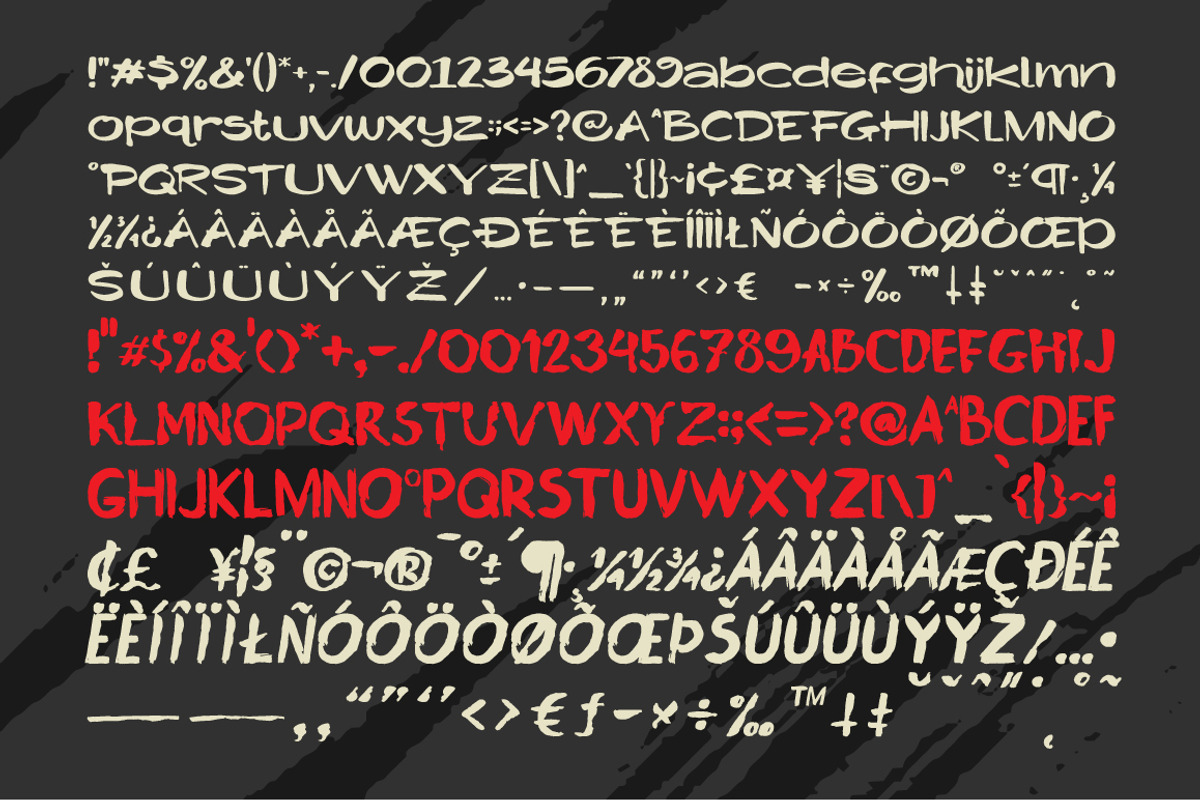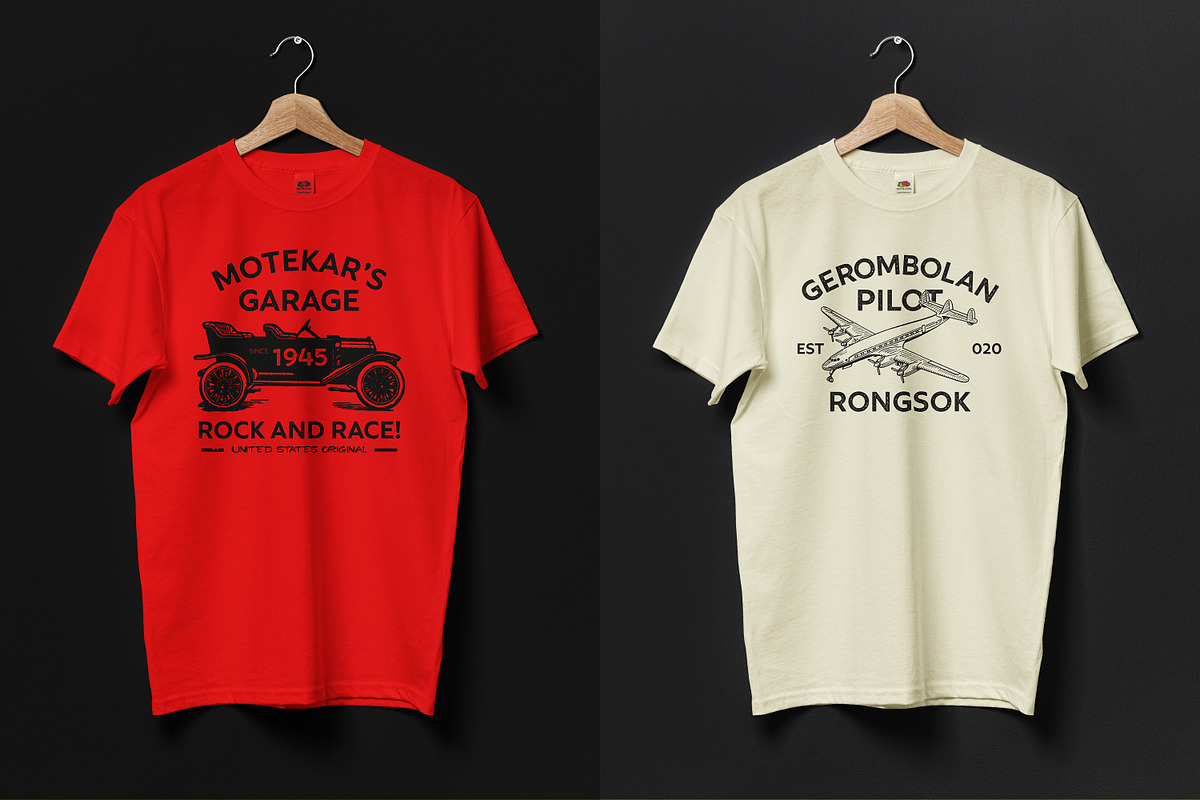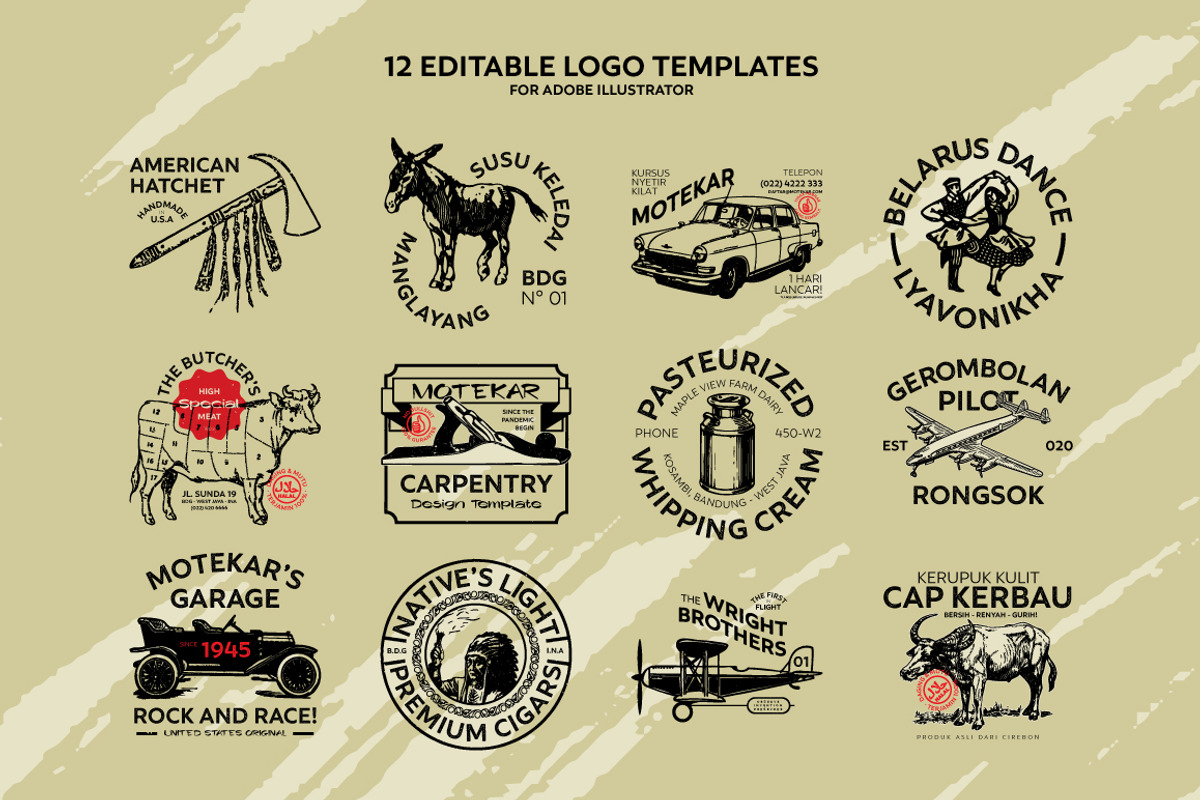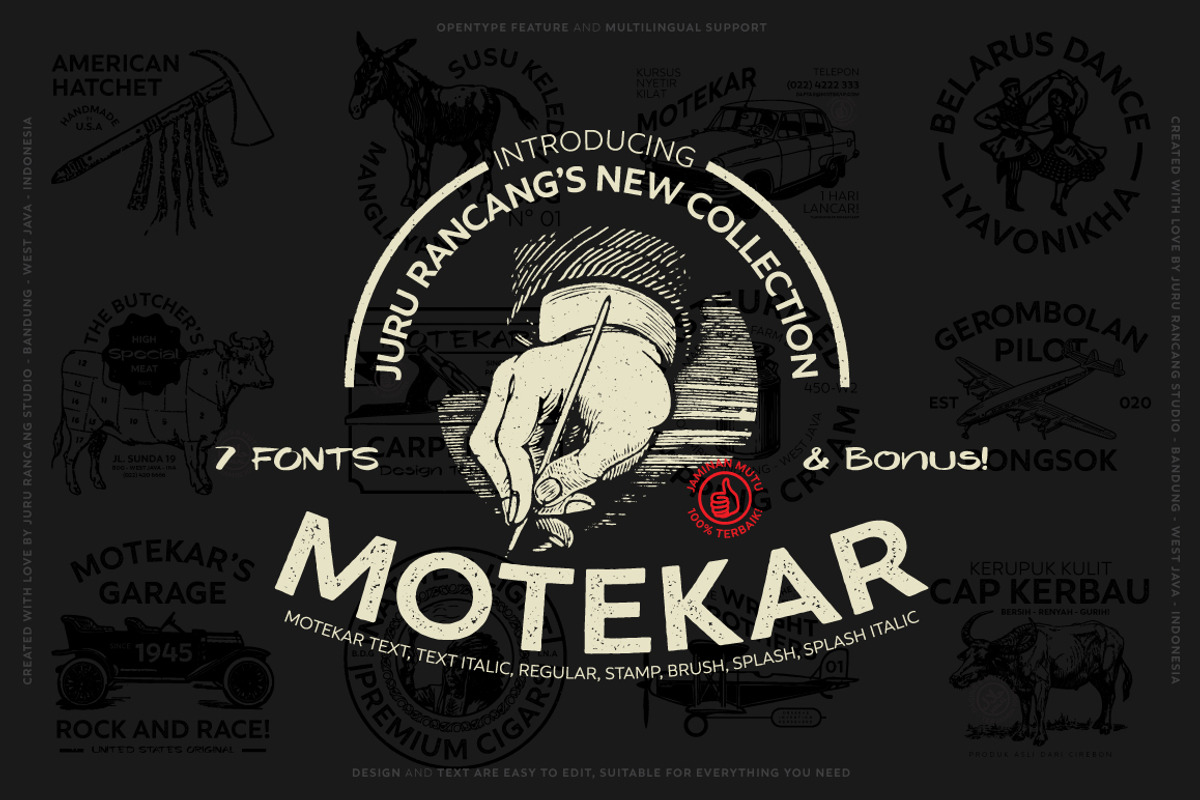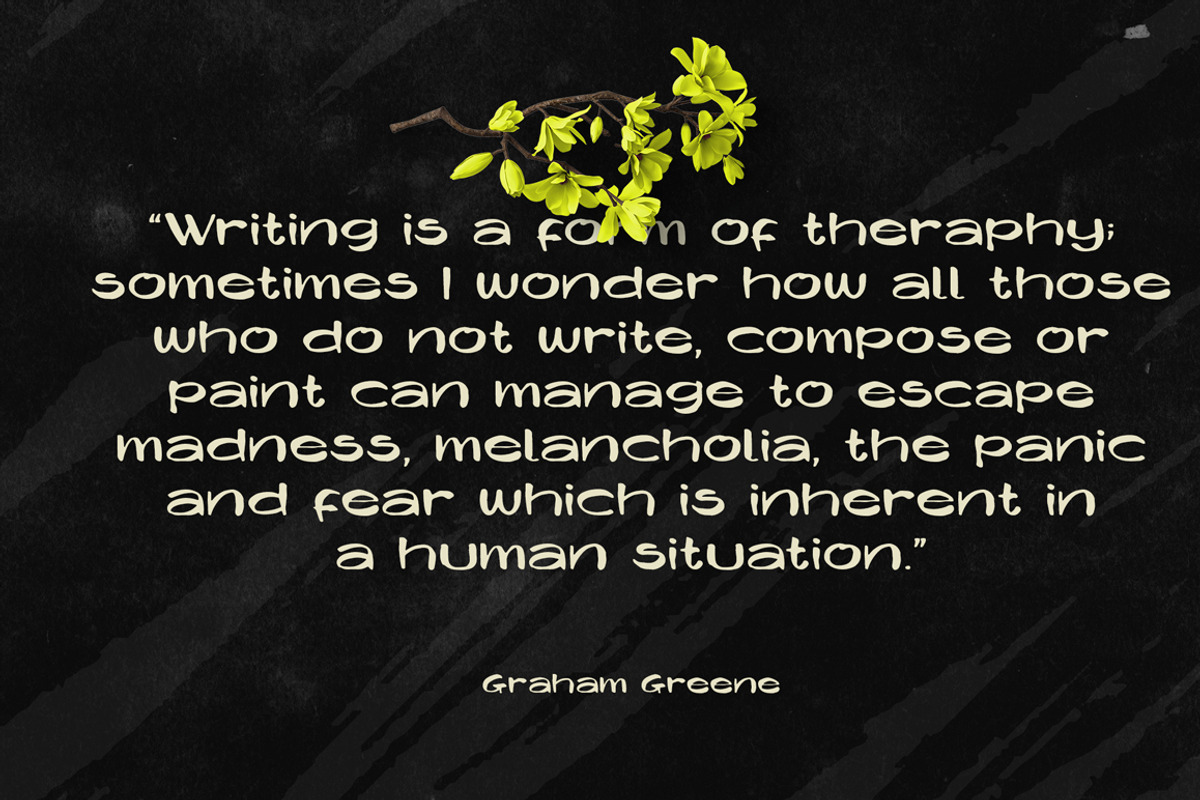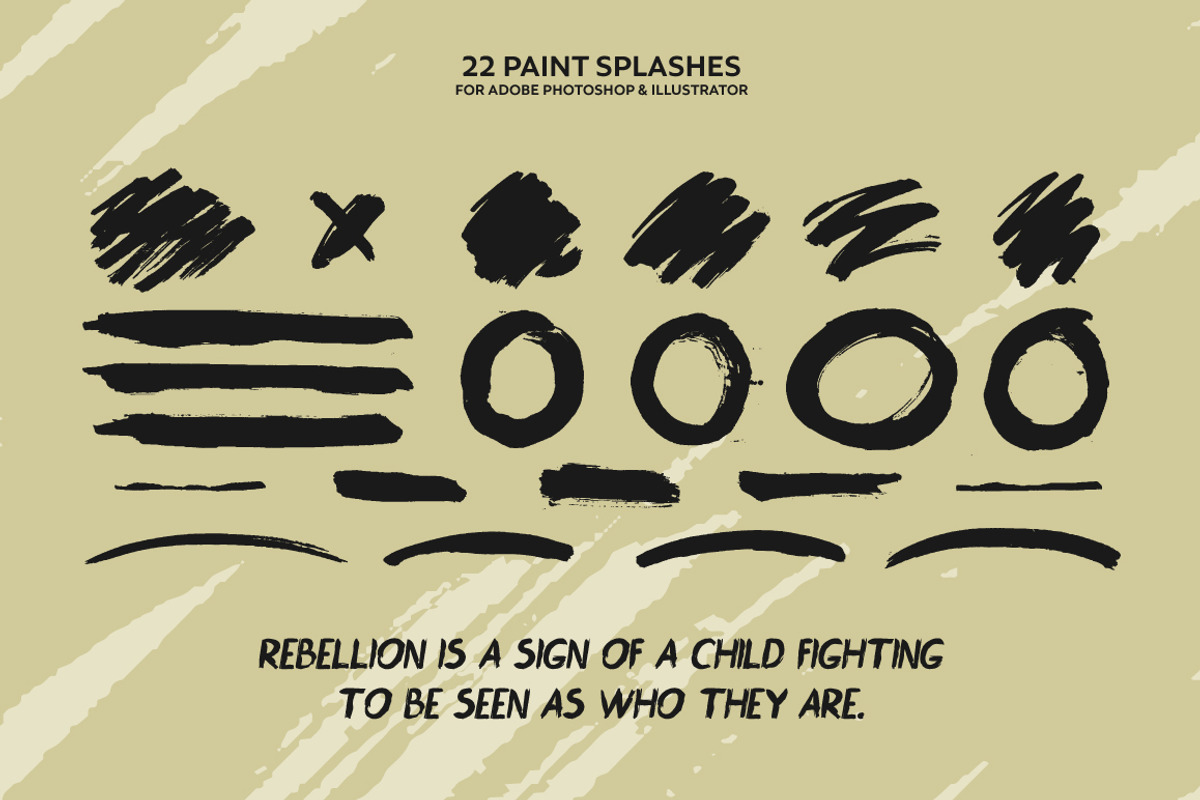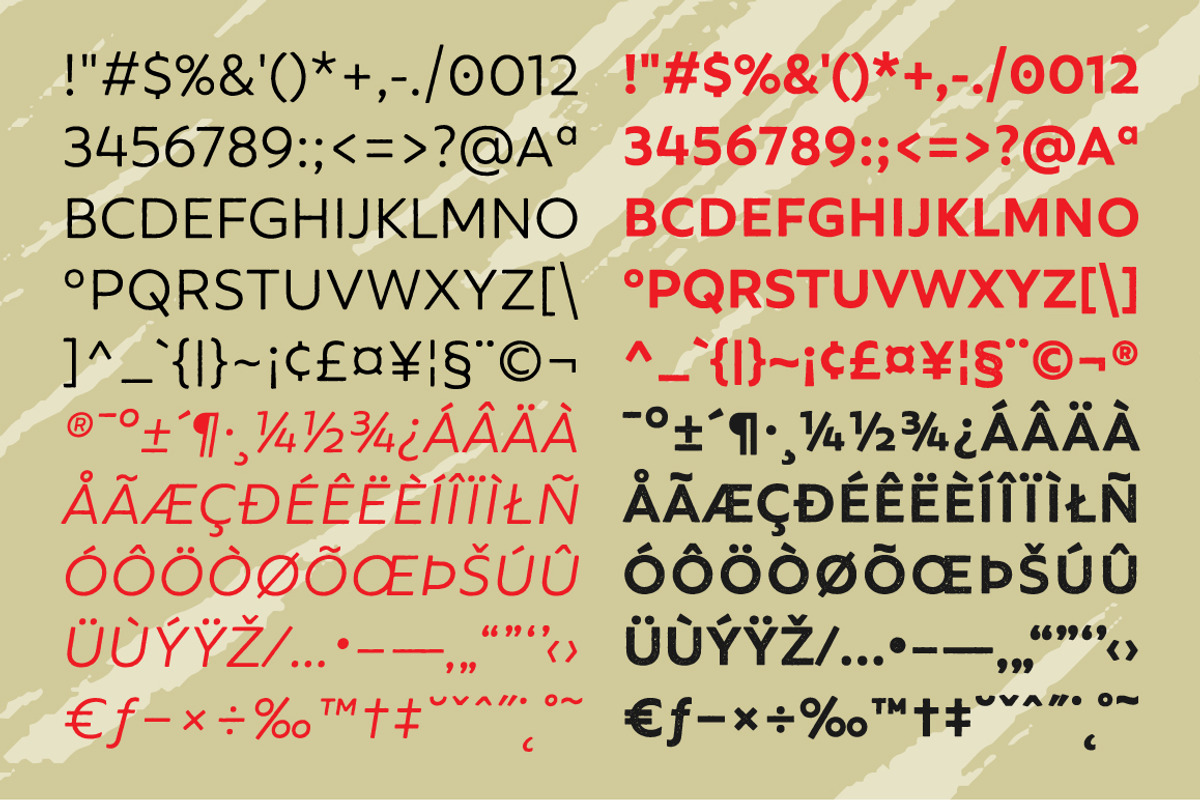
Motekar
Motekar is a combination of font and template packages with a dynamic style that inspired by classic American designs of the century, this bundle would be perfect to combine in your project such label design, logo design, badge design, t-shirt design, posters, greeting cards, letterheads, you name it.